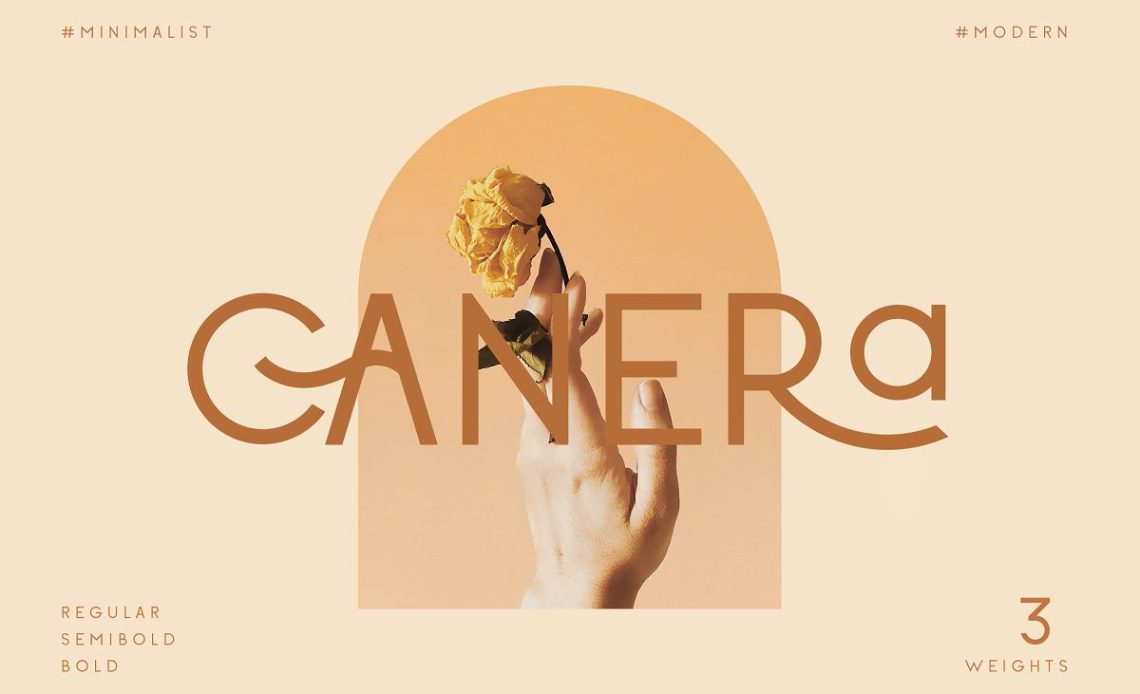
Introducing Canera, the perfect sans serif typeface for your wedding monogram needs. Created by the talented Kurnia Harahap, this font is the epitome of elegance and simplicity. Canera is a modern and versatile font that is sure to elevate any design project.
With its beautiful ligatures, special alternative glyphs, and multilingual support, Canera is the best font for any wedding monogram. The font comes in three different weights, making it perfect for both large and small sizes. You can use Canera for branding projects, logo design, clothing branding, product packaging, magazine headers, or simply as a stylish text overlay to any background image.
Canera is more than just a font - it's a work of art that will bring your design projects to life. Download Canera today and experience the elegance and versatility that this font has to offer. Your wedding monogram will never look better than with Canera.